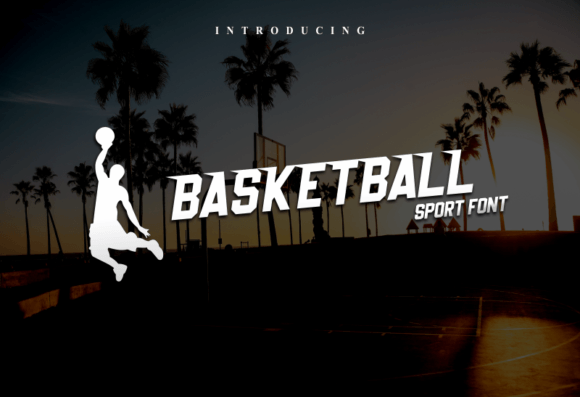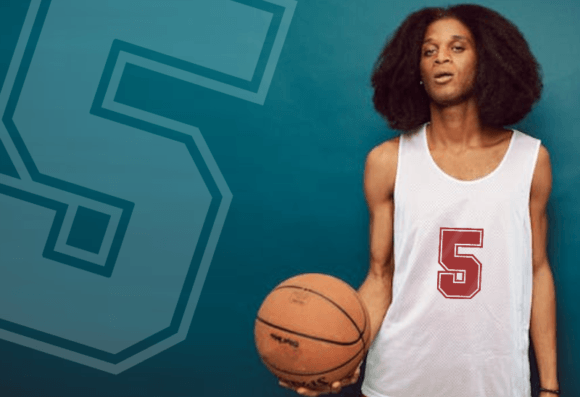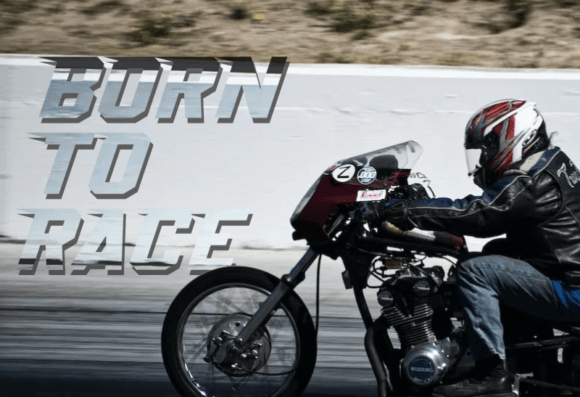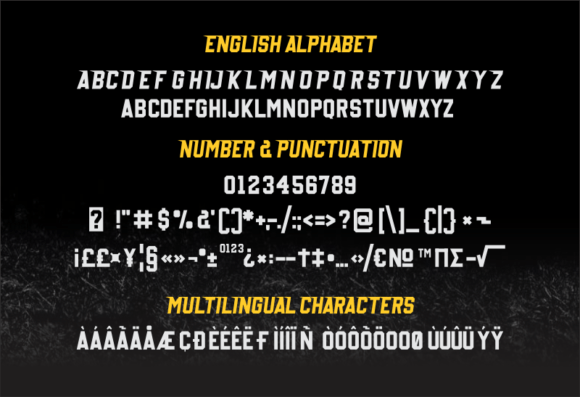
Basketball: A Bold and Authentic Slab Serif Font
Basketball is a bold and authentic slab serif font with a cool style that makes your designs stand out. This dynamic typeface is perfect for sports, racing design, or anything sports-related.
Key Features of Basketball
- Bold Design: Offers a strong, impactful look typical of sports typography.
- Authentic Style: Captures the energy and spirit of athletic design.
- Cool Aesthetic: Brings a dynamic and modern feel to designs.
- Versatile Application: Perfect for various sports-related projects.
Best Uses for Basketball
Basketball’s unique characteristics make it particularly well-suited for:
- Sports team branding
- Athletic event posters
- Racing design materials
- Sports merchandise
- Team jerseys and uniforms
- Sports facility signage
- Athletic promotional materials
When using Basketball in your designs, keep these tips in mind:
- Use for headlines or short text to showcase its bold and dynamic style.
- Try different sizes to highlight the font’s sporty features.
- Pair with simpler fonts for body text to create contrast.
- Experiment with colors that match sports themes and team identities.
To sum up, Basketball is an excellent choice for designers seeking a bold and authentic slab serif font for sports-related projects. Its ability to capture the energy of athletics makes it stand out in the world of typography. Whether you’re working on team branding, creating event materials, or developing sports merchandise, Basketball offers the perfect blend of strength and style.
Moreover, Basketball’s unique design allows it to shine in various sports-related contexts. For instance, from team logos to racing designs, this font can elevate your projects with its dynamic style. Also, its bold yet readable appearance works particularly well in designs that aim to convey power and movement while maintaining clarity.
In conclusion, Basketball truly captures the essence of sports design in slab serif typography. Its versatility across different athletic applications shows how it can fit various creative needs. Therefore, for those wanting to add a touch of sporty charm to their work, Basketball can enhance themed creations with its unique style. Ultimately, it’s an ideal choice for designers aiming to make a bold, athletic impact across a wide range of sports-related projects.